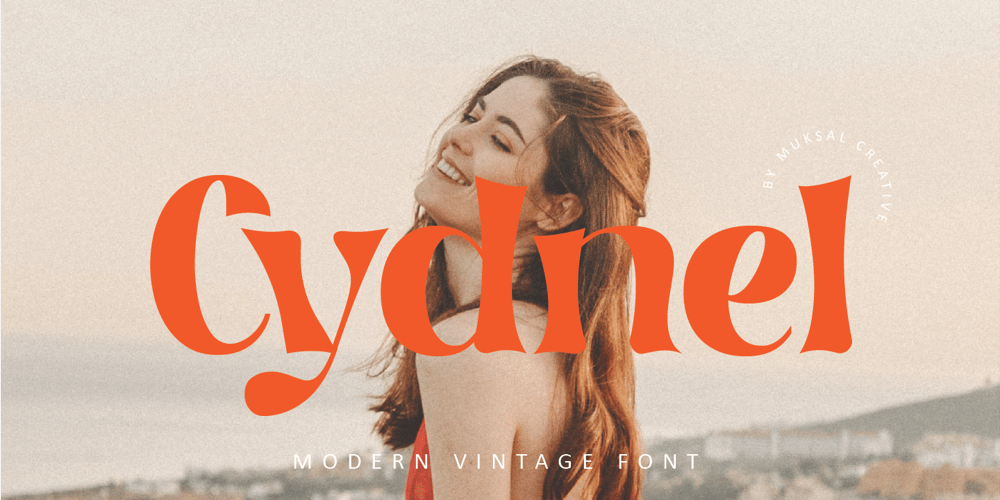
Cydnel Font Family was designed by Muksalmina and published by Muksal Creatives. Cydnel contains 1 styles and family package options. Cydnel Modern Vintage Font, special glyphs, ornament and multilingual support. It’s a very versatile font that works great in large and small sizes. Perfect for editorial projects, Logo design, Clothing Branding, product packaging, magazine headers, or simply as a stylish text overlay to any background image.